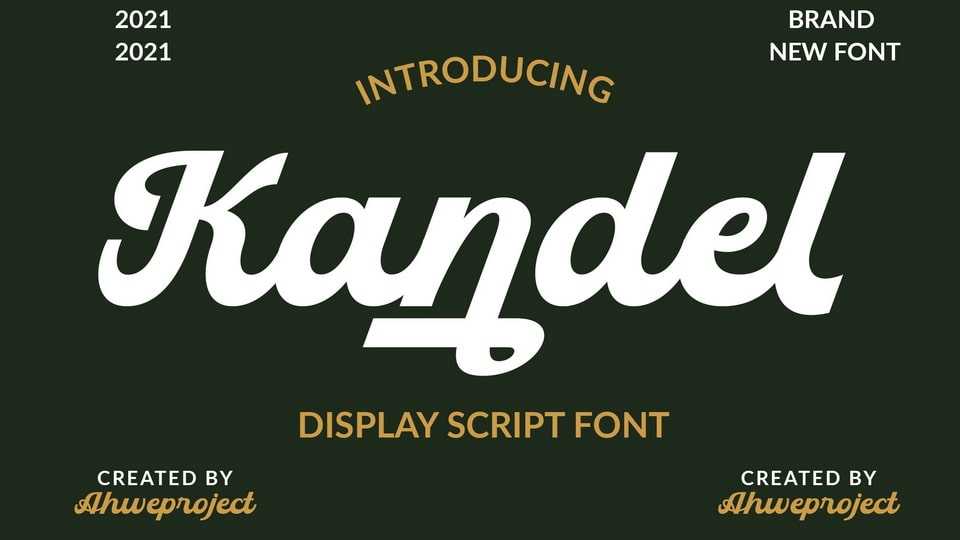
Download Kandel font, a gorgeous and bold handwritten script, crafted to give your headlines and logotype projects a stylish touch. Kandel font reads as strong, confident, and dynamic and can add tons of nostalgic character to your designs.